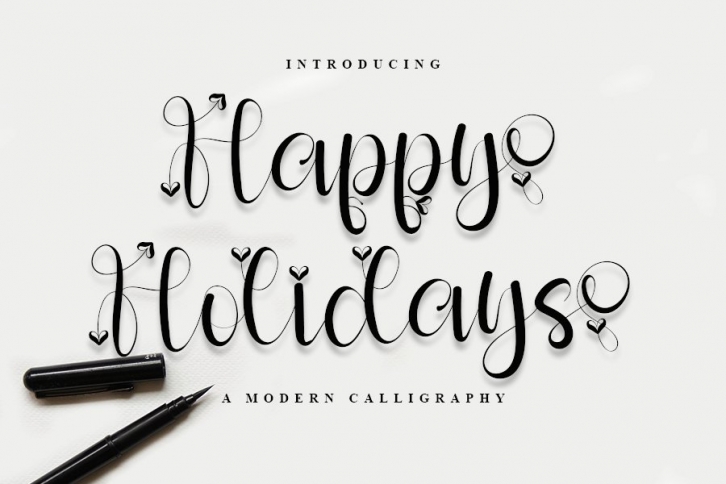
Happy Holiday is a gorgeous font that was realeased on March 16, 2021. The font can be used in many style contexts and design environments. Perfect for invitations, magazines, websites, logos, and more! It was designed by FreshType INK and the file size is 7.95 MB. Thanks for checking out this font!